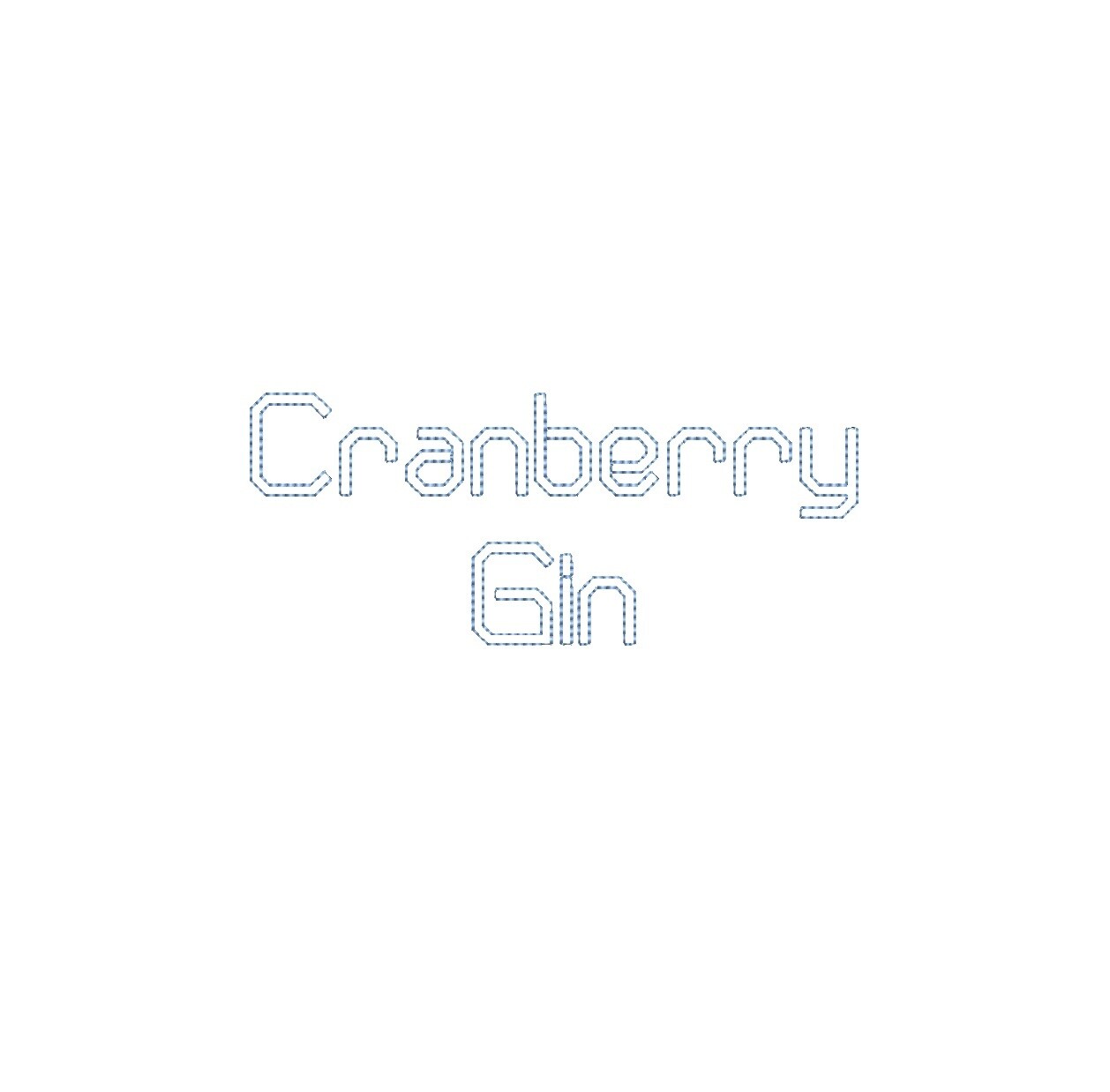
Elevate your embroidery with Cranberry Gin Bean Stitch Outline ESA font. Compatible with Wilcom Studio e4.5.6 and Hatch 3 versions and beyond, this font adds a unique touch to your designs. Its intricate bean stitch outline style brings depth and sophistication, perfect for monograms, labels, and decorative elements. Enhance your embroidery projects with seamless integration and precise stitching. Unlock creativity with Cranberry Gin Bean Stitch Outline ESA font and make your designs stand out. Elevate your creations today.